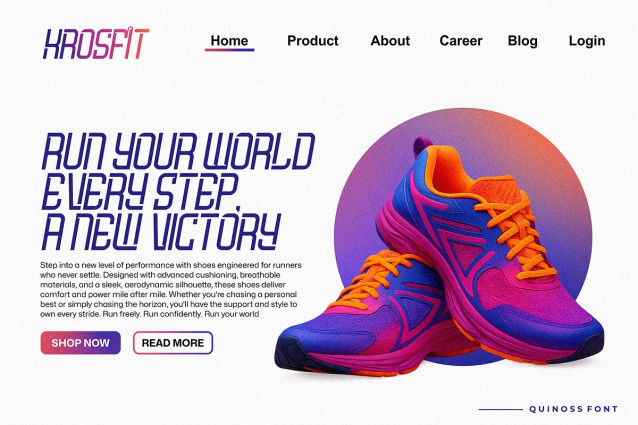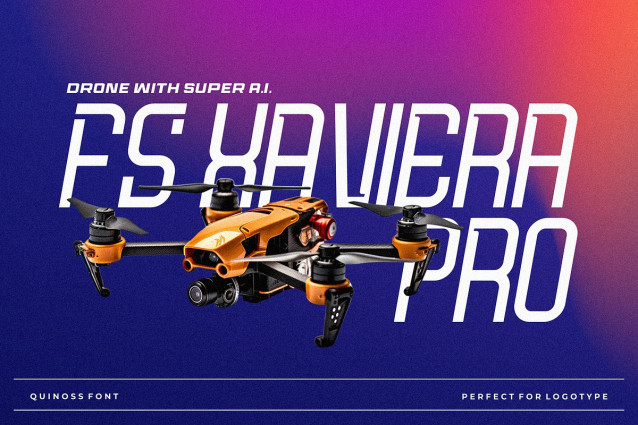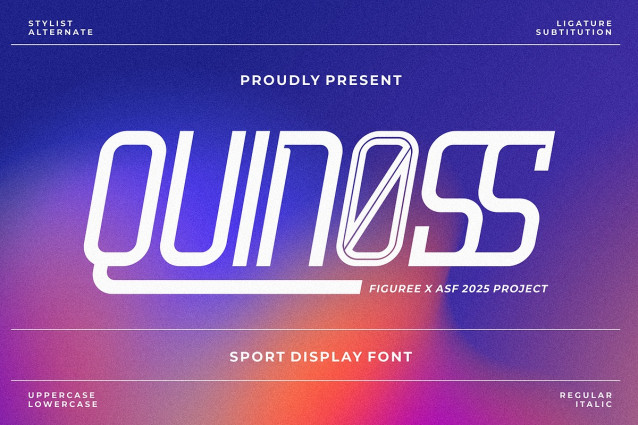
Quinoss Font
Quinoss Font is a dynamic modern sports font that brings speed, power, and clarity to your designs. Designed with a sleek athletic vibe, Quinoss blends bold forms with refined versatility, making it perfect for everything from esports and racing titles to fitness branding and energetic packaging.
Whether you’re designing championship posters or action-packed logos, Quinoss delivers a strong visual punch with precise lines and aggressive style.